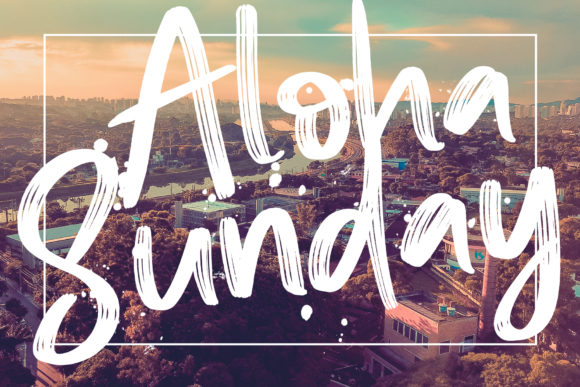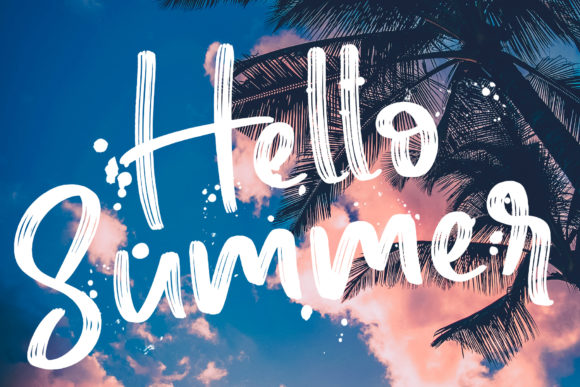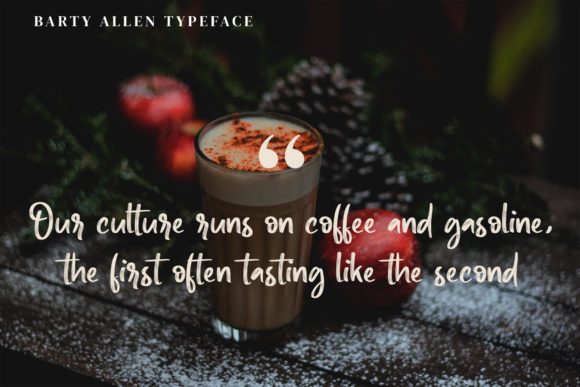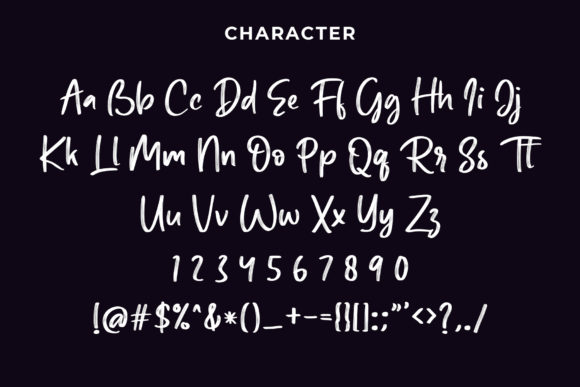
HomeScript FontsBarty Allen Font Script Fonts Barty Allen Font FacebookXPinterestWhatsApp Barty Allen Font Poster 2 Barty Allen Font Poster 3 Barty Allen Font Poster 4 Barty Allen Font Poster 5 Barty Allen Font Poster 6 About Barty Allen Font Barty Allen is a raw and energetic script that’s perfect for adding a dynamic vibe to your next design idea. DOWNLOAD NOW People also explored Healing Font Koolvexa | A Modern Slab Serif Font Geliano Font Panorama Font King Kuon Font Achima Font Hustlin Font Curious Cat Mandala Monogram Font Willow Branch Font 337 0 TagsBarty Allen Font Previous articleMarlina FontNext articleRosella Script Font LEAVE A REPLY Cancel reply Comment: Please enter your comment! Name:* Please enter your name here Email:* You have entered an incorrect email address! Please enter your email address here Website: Save my name, email, and website in this browser for the next time I comment. Personal Use Free Aragon Personal Use Free Read more about this font Term Free Personal Use Free Read more about this font Aline Personal Use Free Read more about this font Pumpkin Type Halloween Font Personal Use Free Read more about this font BLOG How to Install and Use Fonts on Windows, macOS, and Web Projects How to Install and Use Fonts on Windows, macOS, and Web Projects Fonts are a crucial part of design and branding. Whether you’re designing a... Modern Sans-Serif Fonts That Brands Love in 2025 Transform Your Website: Elevate Your Typography with 7 Best Web Font Generators Best Fonts for YouTube Videos: Make Your Thumbnails Stand Out